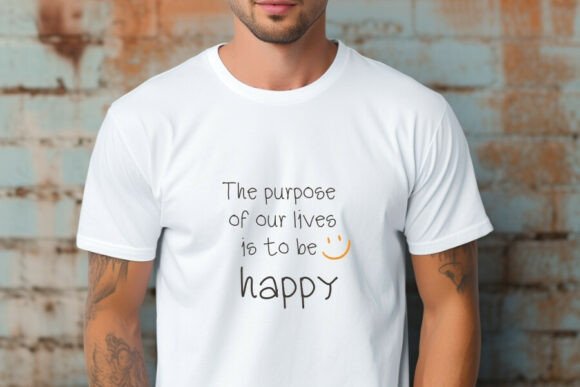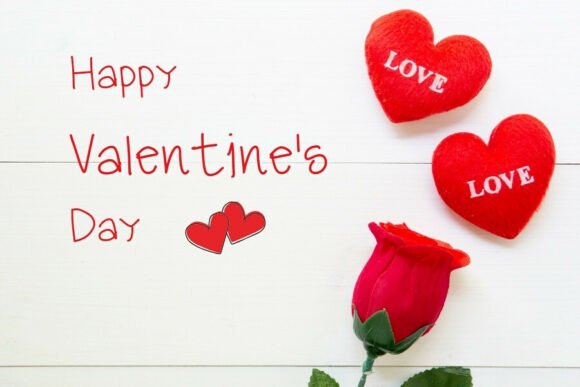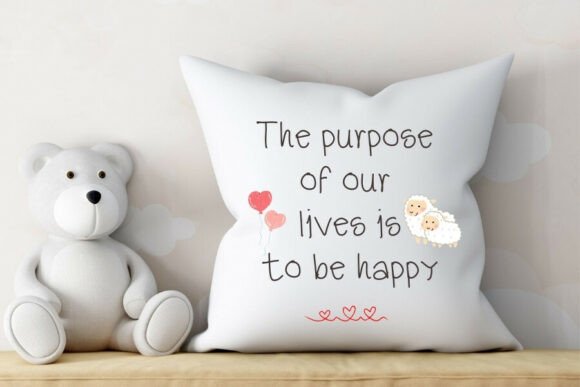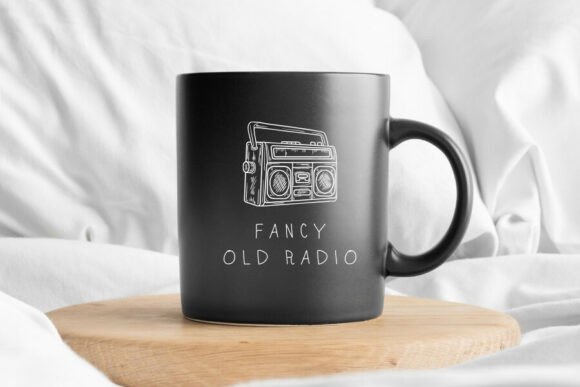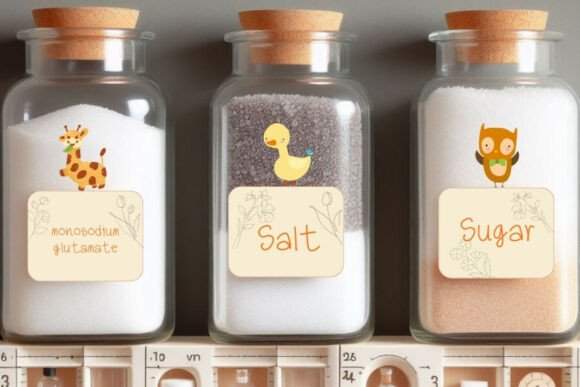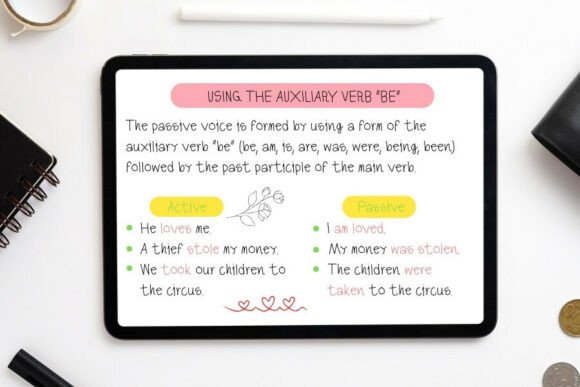
Introduction to Jew Fl Font
Jew FL is designed in a cute, quirky and modern handwritten font.
It would be awesome to your fun projects or diary planner, on wedding invitations, thank you cards, quotes, greeting cards, logos, posters, blogs, bag, T Shirt, clothing and other designs choice for each to your creations and take your designs to the next level.